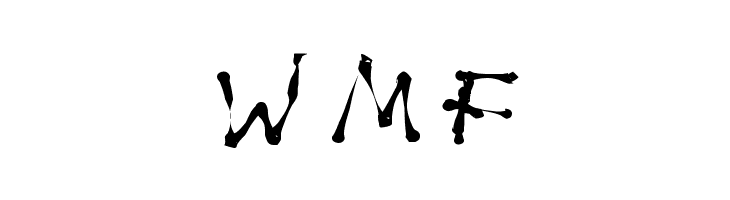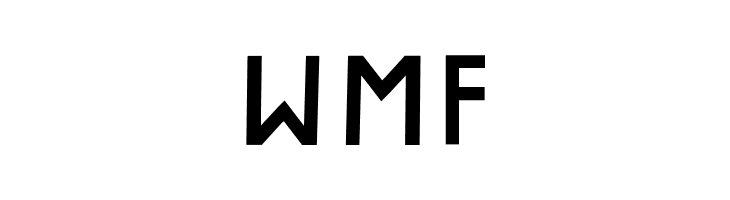
( Fonts by Manuel Viergutz - Typo Graphic Design - www.typographicdesign.de )
A pixelated, italicized bitmap font with a retro digital aesthetic.
( Fonts by Steve Cloutier - www.cloutierfontes.ca )
A decorative and intricate font with characters formed by intertwining shapes.
( Fonts by Darrell Flood )
A dot-matrix style font with a digital, retro aesthetic.
( jbensch.deviantart.com )
A skyline-inspired decorative font with a modern, architectural style.
( Fonts by www.hindson.com.au )
This is not a valid text font; it is a collection of musical notation symbols.
A bold, irregular font with a dynamic, hand-drawn style.
( Fonts by Chris Vile )
A bold, graffiti-inspired font with dynamic, angular strokes and an urban feel.
A bold, hand-drawn font with an expressive and informal style.
Invalid font representation with only 'X' characters.
A rugged, distressed font with a brush-like texture and jagged edges.
A bold, hand-drawn font with expressive and uneven strokes.
Dice-themed decorative font with numbers and dot patterns in pentagons.
A modern, dot-based font with a digital, geometric style.
( Fonts by Intellecta Design )
Ornamental floral dingbat collection with bold, hand-drawn style.
A whimsical, cartoon-style display font using a monkey face as its character.
A decorative and abstract font with geometric shapes and lines.
A dot matrix-inspired font with a digital, retro aesthetic.
( Fonts by Andrus Peegel )
A hand-drawn, artistic font with elongated, irregular strokes and a playful appearance.
A distressed, grunge typeface with a hand-drawn, vintage aesthetic.
A modern, condensed sans-serif font with medium weight and italic style.
( Fonts by EvasUniqueFonts )
Ornamental dingbat font with detailed mandala and floral motifs.
A bold and decorative set of geometric symbols with high contrast and modern style.
A decorative floral dingbat set with varied flower and plant motifs.